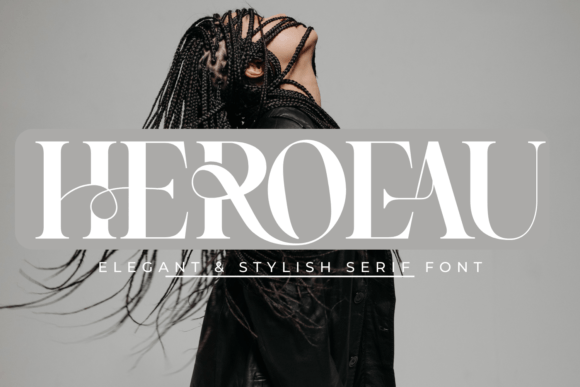
Introducing Heroeau Elegant Font, the ultimate choice for luxury brands seeking to leave a lasting impression. This exquisite serif font, created by the talented 177Studio, is a true masterpiece that will elevate your designs to new heights.
With Heroeau Elegant Font, you have the power to create captivating headlines that exude opulence and sophistication. Its refined and stylish design effortlessly blends the classic with the contemporary, making it the perfect choice for those in search of timeless elegance.
The font's unique combination of contrasting lines and gracefully curved terminals adds a touch of sleekness and refinement to any project. Whether you're designing a logo for a high-end brand, crafting holiday cards that radiate luxury, or creating stunning wedding invitations, Heroeau Elegant Font will ensure your creations stand out from the crowd.
Unleash your creativity and let Heroeau Elegant Font transform your quotes and advertisements into works of art. Its luxurious appeal will effortlessly draw the attention of your target audience, leaving them captivated and eager to engage with your message.
But Heroeau Elegant Font offers more than just visual appeal; it evokes emotion and creates a connection with your audience. Its vintage flair adds a sense of nostalgia and allure, making it the perfect choice for brands that want to establish a sense of tradition and exclusivity.
Imagine the impact of using Heroeau Elegant Font in your marketing materials. Your brand will exude confidence and sophistication, leaving a lasting impression on potential customers. They won't be able to resist the allure of your beautifully designed products and services.